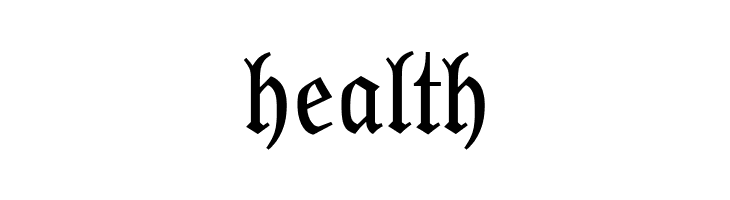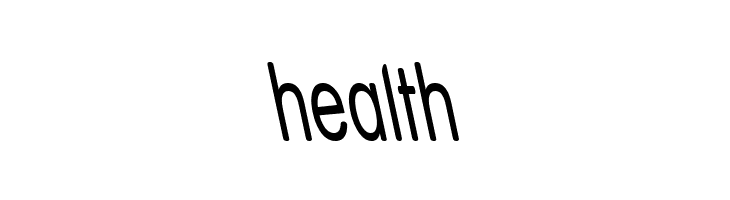
A futuristic, geometric font with rounded edges and a sleek, modern design.
A modern blackletter font with ornate and intricate letterforms.
A modern, expanded font with a reverse italic slant and bold, rounded characters.
A thin, reverse italic font with a modern and sleek design.